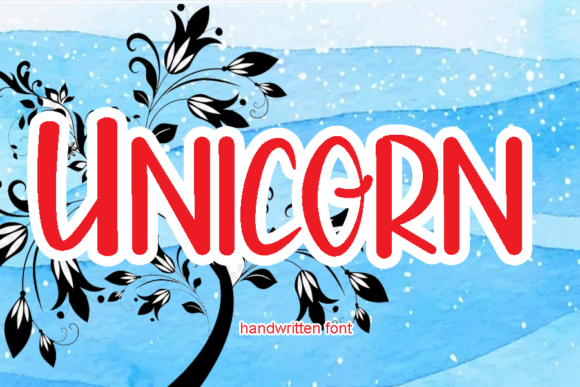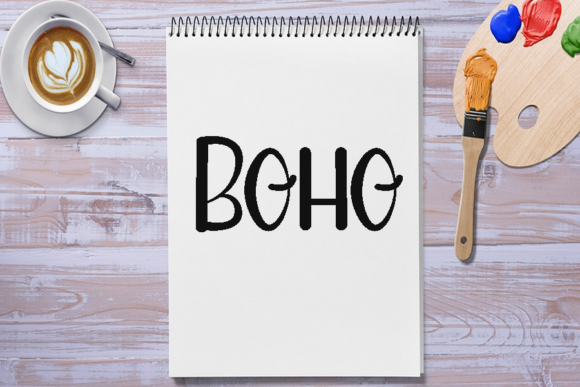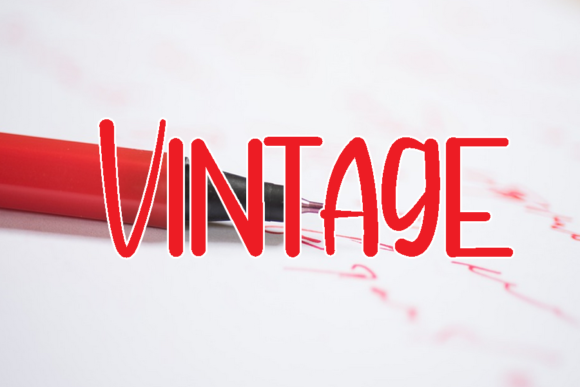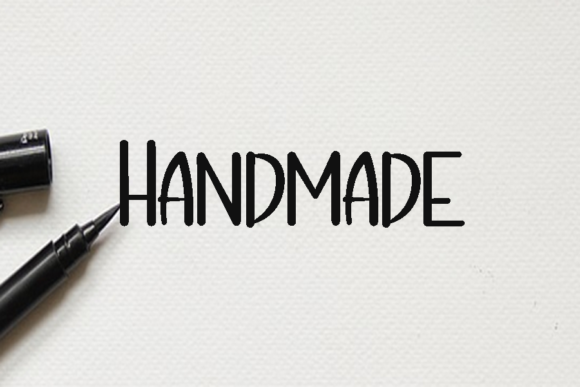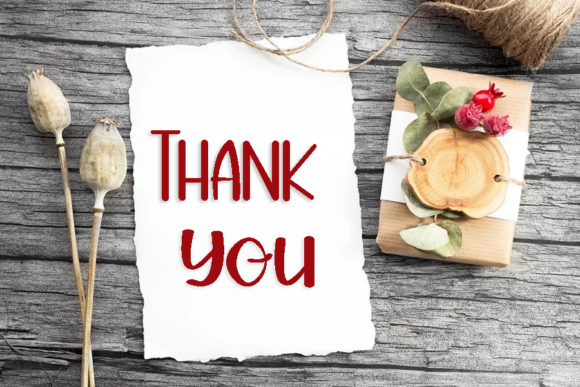
About Unicorn Font
“Unicorn” presents itself as a chic and fashionable handwritten font. While its design is simple, it carries a powerful visual impact that sets it apart. This font possesses the remarkable ability to instantly enhance your creations and make them more captivating than others.
The trendy nature of “Unicorn” makes it an excellent choice for modern design aesthetics. Its clean lines and distinct style align well with contemporary design trends. Whether applied to digital or print materials, this font has the potential to elevate your work with its fresh and appealing look.
The strength of “Unicorn” lies in its ability to transform ordinary text into eye-catching content. Its chic design carries a sense of elegance that can uplift various design projects. By integrating this font into your creations, you’re ensuring that your work stands out and leaves a memorable impression.
Incorporating “Unicorn” into your design endeavors means embracing its chic and trendy attributes. Its capacity to instantly enhance the visual appeal of your creations positions it as a valuable asset in your design toolkit. By adding this font to your projects, you’re infusing them with a touch of modernity and sophistication that captures attention effectively.